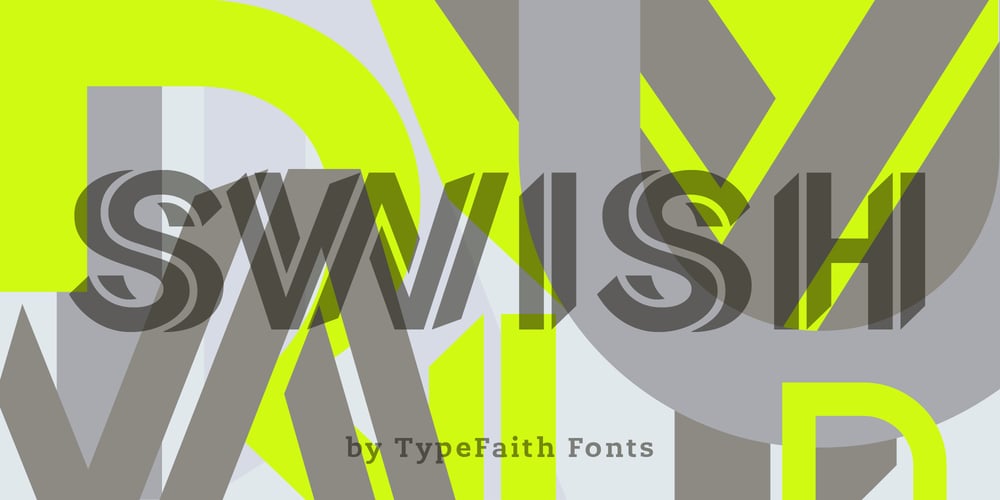
Swish Font Family was designed by Léon Hulst and published by TypeFaith Fonts. Swish contains 2 styles and family package options. Swish is a contemporary geometric font with two 3D orientations that create an alienating effect. The direction is shifted around the center of the horizontal axis. The font is inspired by the change of perspective that the artist Escher used in his drawings. It is a complete Latin font in which all the accents are present. The unique thing about this font is that it is also a stencil letter. The Swish font is designed to work in any printed and on-screen contexts, including logo design, brand identities, websites, packaging, posters and headlines. Optimized for latin based languages. Leon Hulst for TypeFaith Fonts.